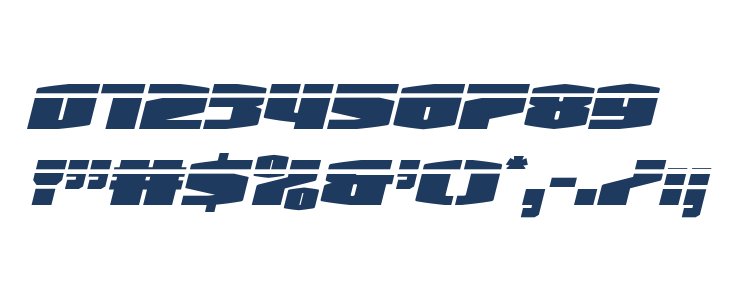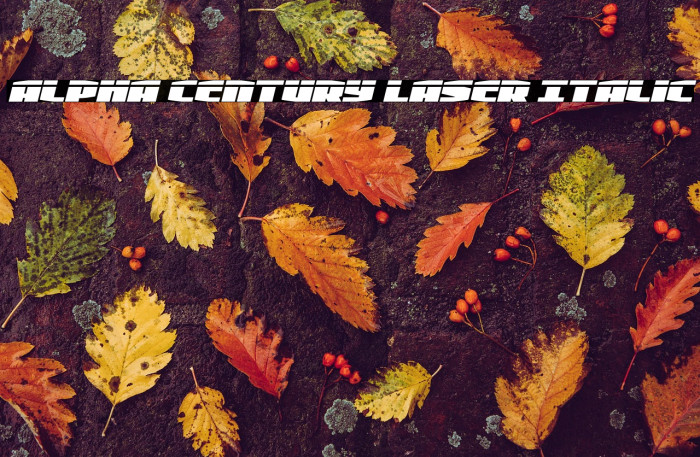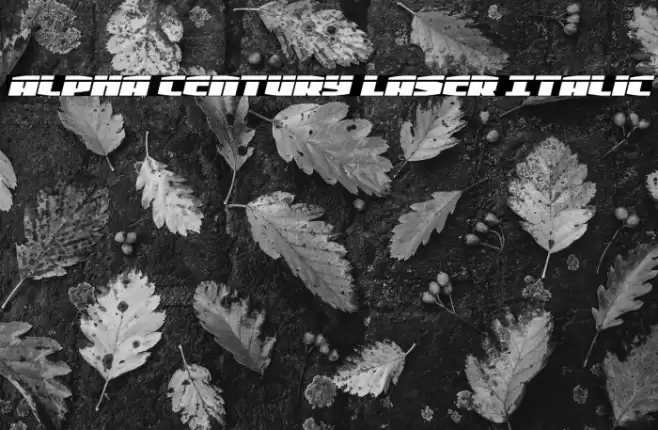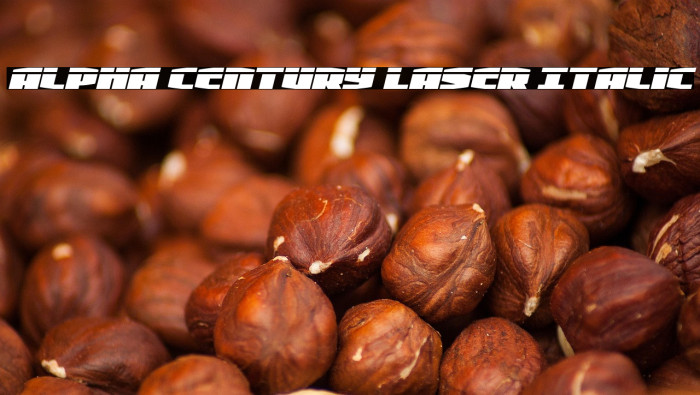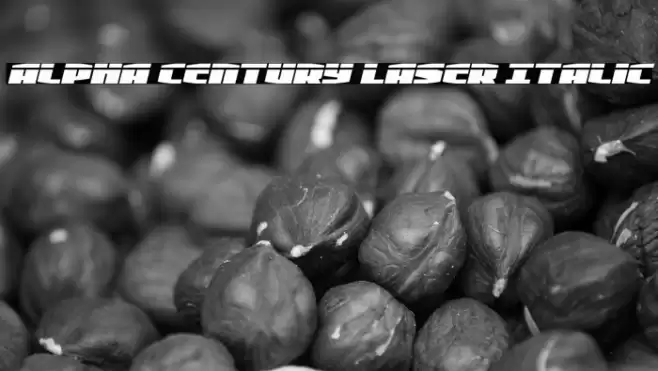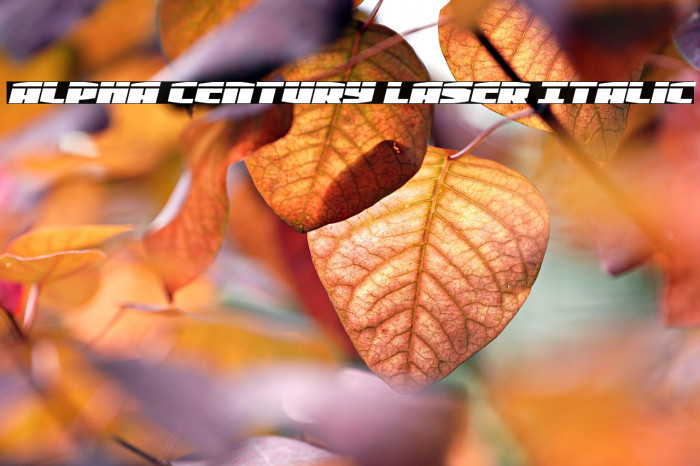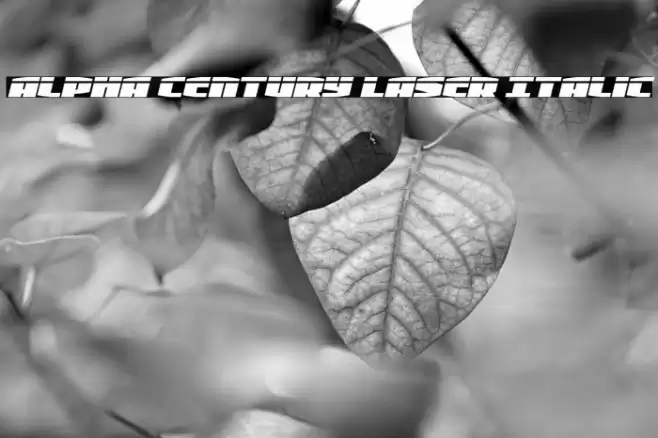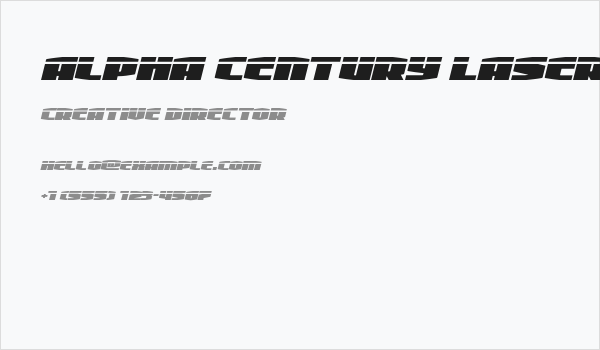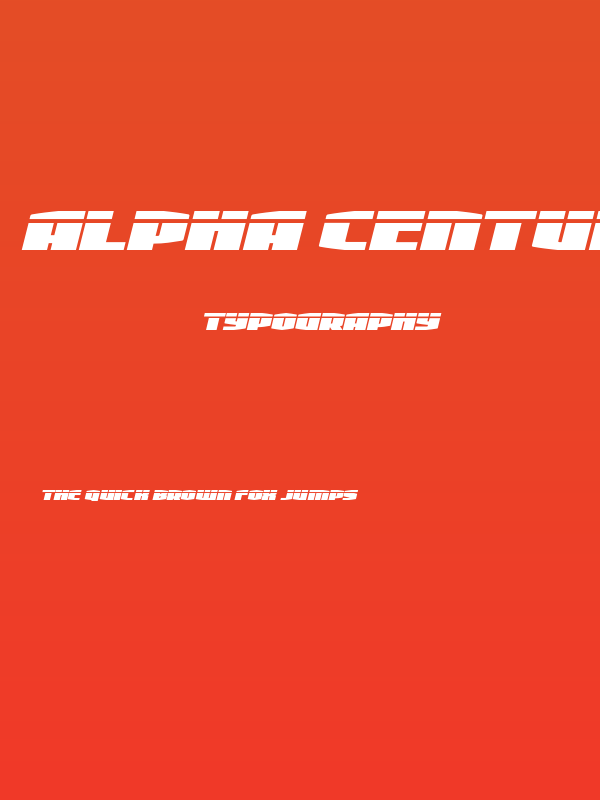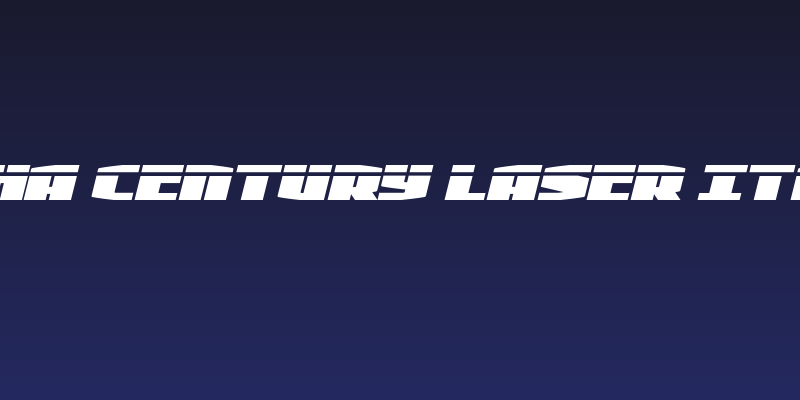
Alpha Century Laser Italic Font
Alpha Century Laser Italic Description
This font features a futuristic and bold design with a distinctly angular and geometric style. The characters are wide and have a strong presence, making them ideal for attention-grabbing headlines or titles. The italic slant adds a dynamic and forward-moving feel, enhancing its modern aesthetic. The uppercase and lowercase letters maintain consistency in style, with sharp edges and a uniform thickness throughout. Numbers and special characters are designed to match the bold and angular theme, ensuring a cohesive look across all text elements.
| Proposed Projects | Ideal for sci-fi themed projects, futuristic branding, video game titles, and technology-related advertisements. |